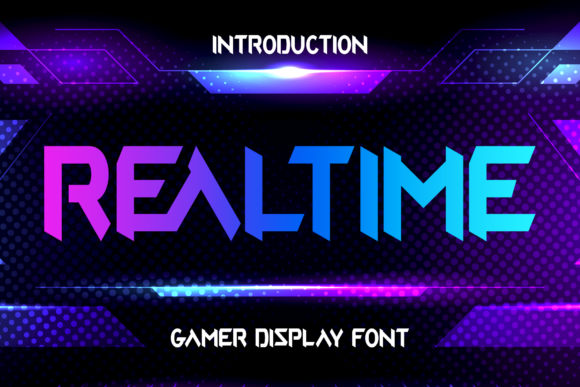
Prepare yourself for an interstellar digital odyssey with Realtime Font - the font that propels your designs to extraordinary dimensions. Inspired by the vast expanse of cyberspace, Realtime is a captivating display font that exudes a techno-futuristic charm. Let your creativity soar as you craft web designs, business cards, and any other project that demands a bold and distinctive flair.
Dive into the world of Realtime Font, where letters transform into sleek, aerodynamic glyphs reminiscent of spaceships traversing the digital realm. Each character is meticulously crafted with sharp edges and dynamic curves, embodying the essence of speed, energy, and innovation. Unleash your imagination and witness your designs transcend the ordinary, taking on a life of their own.
With Realtime Font, you'll unlock a font that's more than just a collection of letters - it's a gateway to a world where imagination reigns supreme. Its bold and attention-grabbing nature commands attention, making it the perfect choice for headlines, titles, and any element that demands to be noticed. Let your words radiate with power and charisma as they leap off the screen, captivating your audience with their undeniable presence.
Step into the future with Realtime Font and embark on a journey where creativity knows no bounds. Its versatility extends beyond digital realms, making it a striking choice for print materials such as posters, flyers, and brochures. Allow your designs to break free from the constraints of convention and make a lasting impression that lingers long after the final pixel fades.
Welcome to the next generation of font design. Realtime is not just a font; it's a statement of individuality, a testament to your unique style. It's a font that challenges the boundaries of creativity, pushing the limits of what's possible. Embrace the boundless potential of Realtime Font and watch as your designs soar to new heights, leaving your audience in awe.